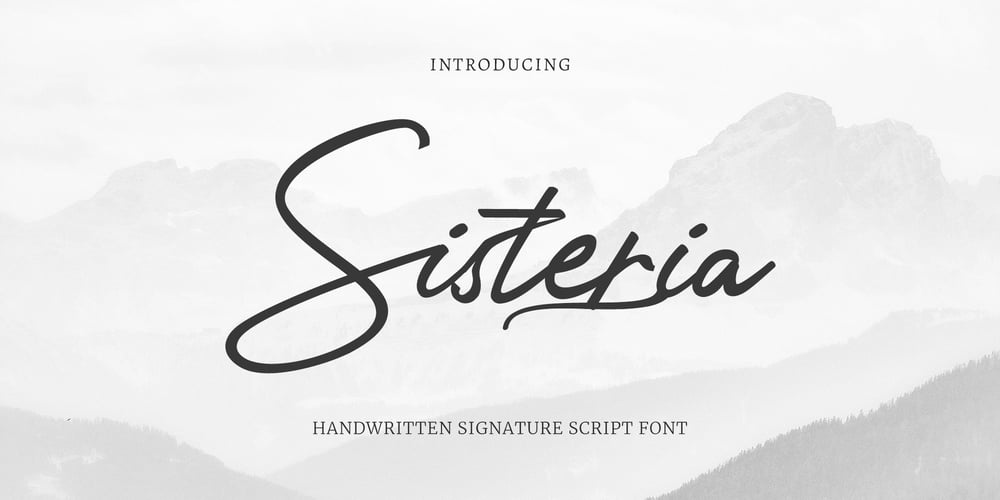
Sisteria Font Family was designed by Lufti Nurfahmi and published by Appiqa Studio. Sisteria contains 1 styles and family package options. Introducing Sisteria Handwritten Signature Script Fonts, the perfect blend of elegance and personality for your projects. Crafted with meticulous attention to detail, Sisteria offers a collection of beautiful handwritten script fonts that will add a touch of sophistication to any design.